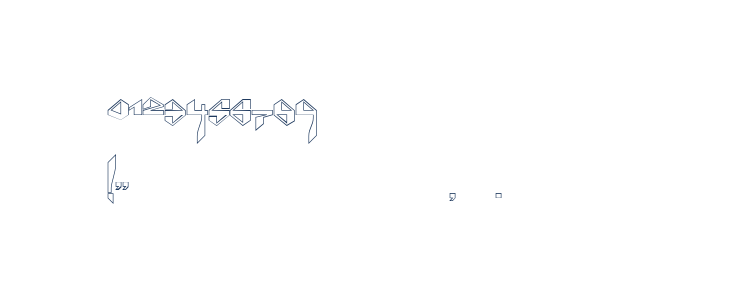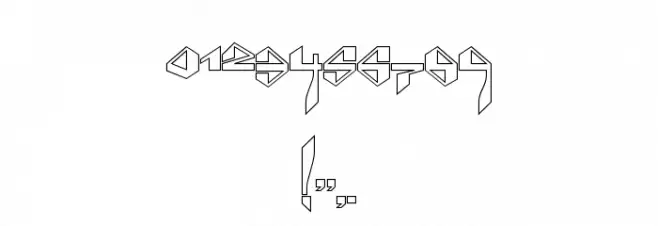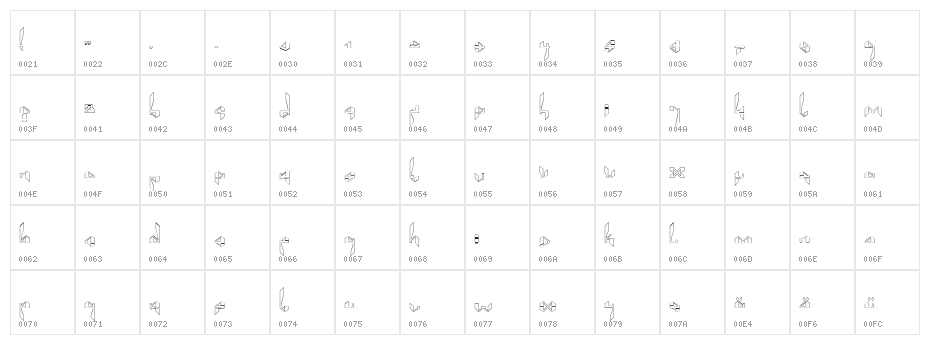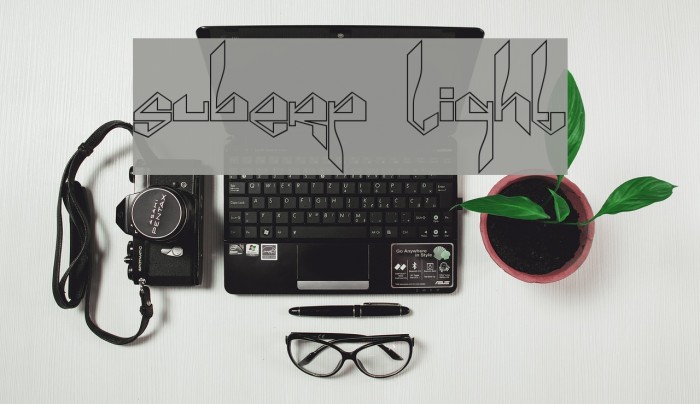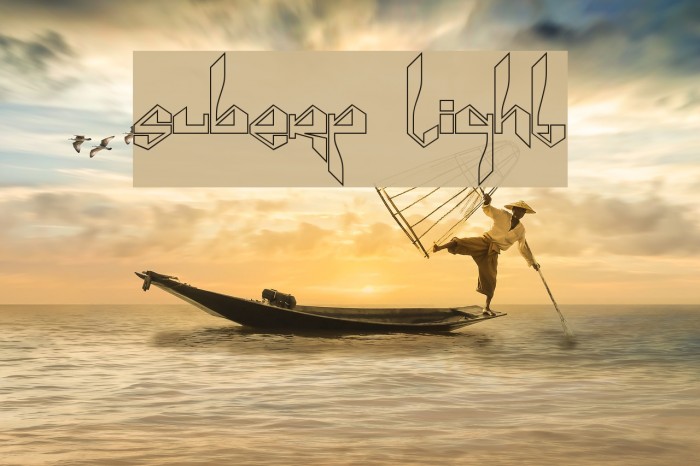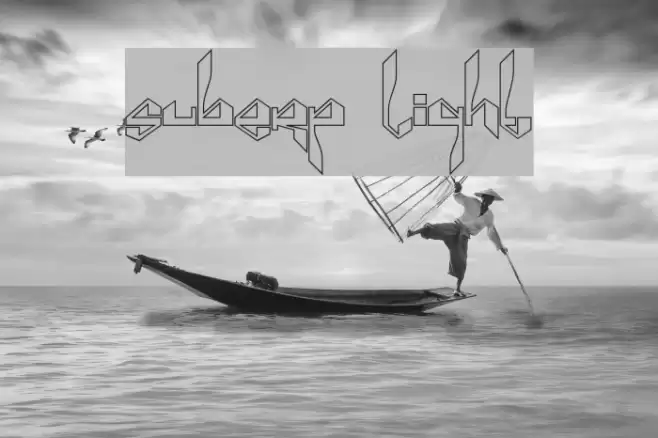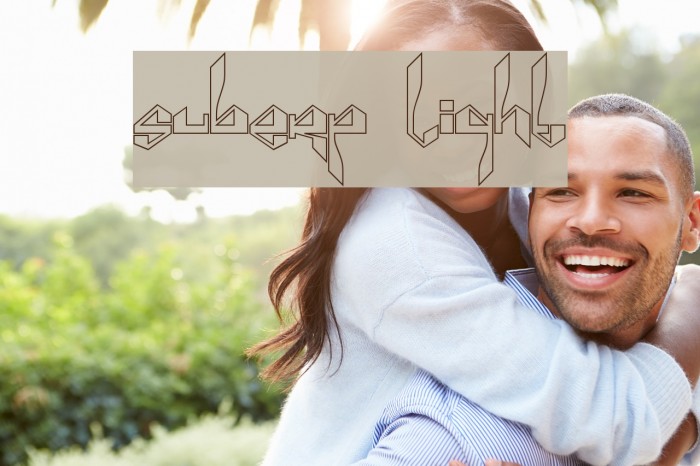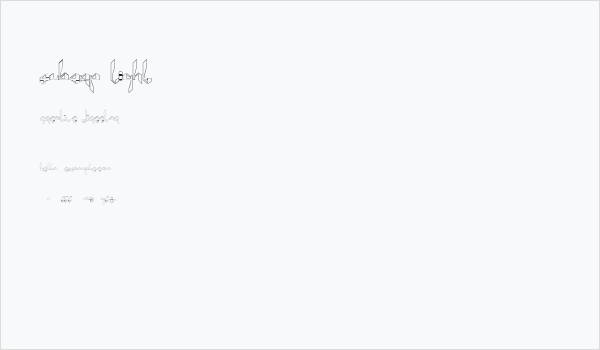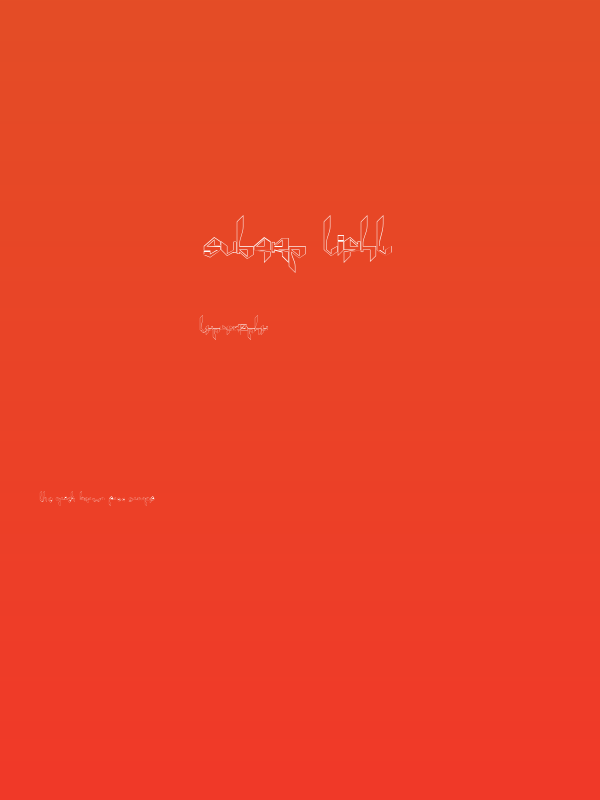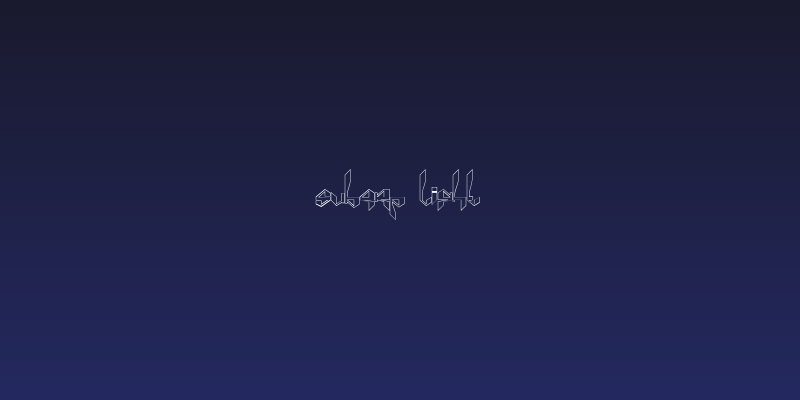
Suberp Light Font
Suberp Light Description
This font features a highly geometric and angular design, characterized by sharp edges and a futuristic aesthetic. Each character is constructed with a series of straight lines and angles, giving it a unique, almost robotic appearance. The font maintains a consistent line weight throughout, contributing to its modern and sleek look. The uppercase and lowercase letters share a similar structure, enhancing the uniformity of the typeface. Numbers and special characters are designed with the same angular style, ensuring a cohesive visual experience across all glyphs.
Overall StyleFuturistic
Proposed ProjectsIdeal for sci-fi themed projects, tech branding, video game titles, and futuristic posters.